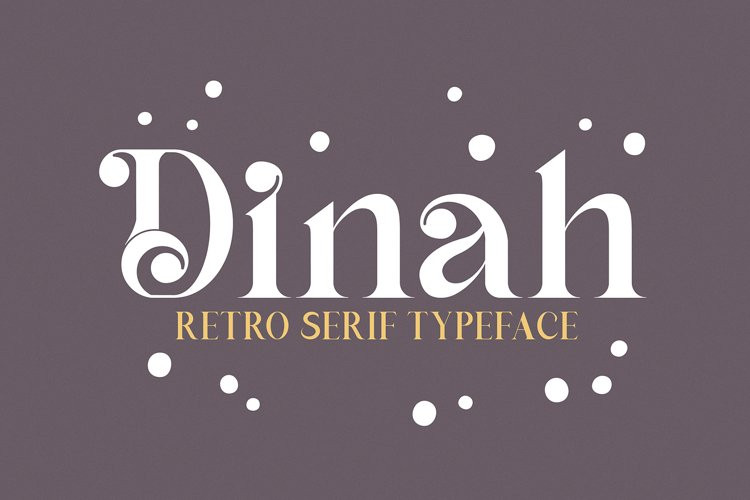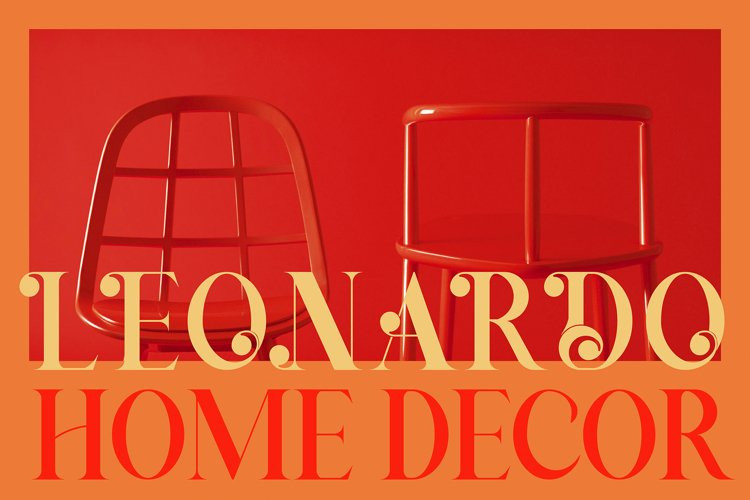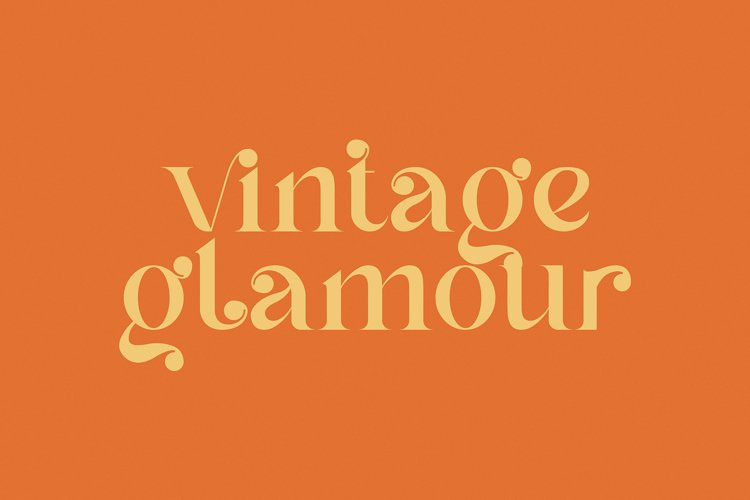
Dinah Glamour Font
Dinah Glamour FontI present to you the font “Dinah” – an elegant “two-faced” serif with both modern and vintage curves, which creates an incredible vintage aesthetic. Use this serif font to add that special retro touch to any design idea you can come up with!
This font is able to take your every creative idea to a high level, providing you with many fascinating custom text compositions! Because of its split personality, Dinah is a very versatile font, covering a wide range of project types, from bold images in magazines to wedding invitations, branding, poster design and more.